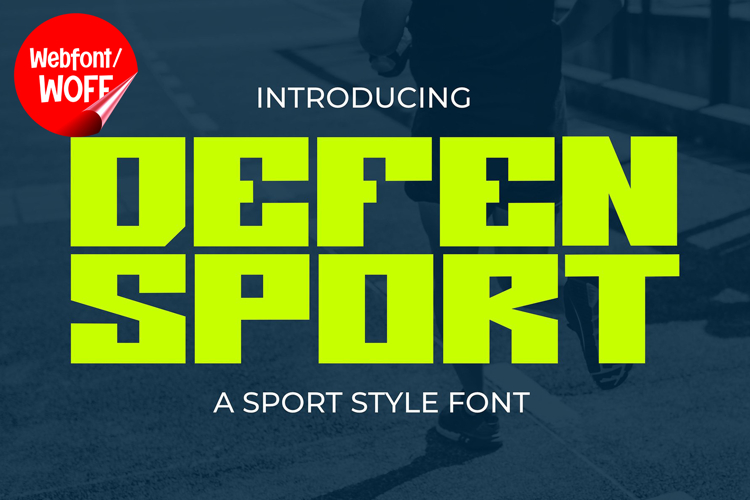
Defen Sport | Modern Futuristic Webfont for Sports & Tech
Defen Sport is a modern futuristic webfont designed to bring speed, innovation, and bold digital aesthetics into contemporary website design. Inspired by advanced technology, esports visuals, and modern athletic branding, this font features sharp letterforms and clean geometric structures that create a sleek and powerful visual identity. It is an excellent choice for projects that aim to deliver a high-tech appearance with strong modern character and professional impact.
Defen Sport includes a complete set of uppercase characters designed with modern futuristic aesthetics. The letterforms feature angular cuts, bold proportions, and streamlined details that create a dynamic and high-performance appearance inspired by sports technology and futuristic interface design. These characteristics make it ideal for headlines, banners, hero sections, branding layouts, promotional graphics, and featured content where strong visual impact is needed.
In addition to letters, the font includes numbers and punctuation, allowing flexible usage across various parts of a website. It works well for esports branding, gaming websites, sports apparel, technology startups, automotive projects, fitness campaigns, and digital product presentations. Each character maintains a consistent futuristic style, ensuring a cohesive and unified visual identity throughout the design.
With multilingual support, Defen Sport includes a wide range of accented characters, making it suitable for international websites and global audiences. This ensures content remains clear and visually consistent across different languages while preserving the sleek and modern futuristic aesthetic.
The modern futuristic style of Defen Sport makes it especially suitable for technology-focused websites, sports branding, gaming projects, and innovative digital campaigns. Its bold structure and sharp visual details create an energetic atmosphere that helps websites stand out in visually competitive environments. The futuristic forms add movement, precision, and high-tech character while maintaining a clean and professional appearance.
Despite its bold and futuristic appearance, Defen Sport is designed with readability in mind. The spacing and proportions are carefully balanced to ensure clarity, particularly in display sizes. This allows designers to use the font effectively for impactful headings and short content without sacrificing usability.
Defen Sport is a webfont that combines futuristic aesthetics with modern digital performance. Its sharp forms, geometric structure, and innovative character create a distinctive typographic presence that enhances website design. For projects that require a sleek, sporty, and visually engaging futuristic font, Defen Sport offers a versatile and powerful solution.